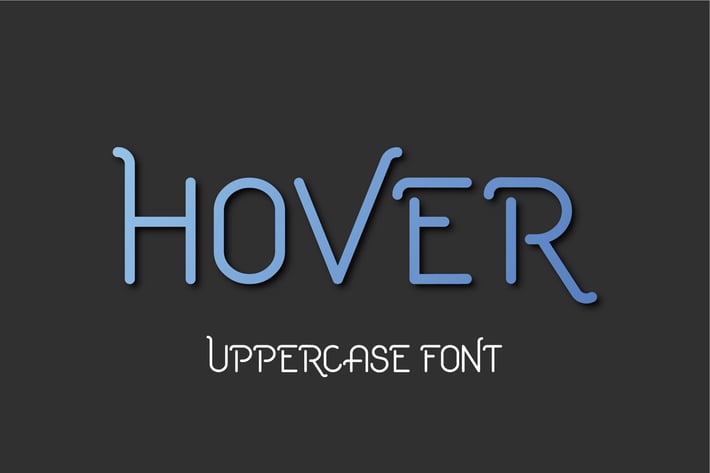
Hover Uppercase Font
Hover is Uppercase display font. It will create unique character to Your new project. Hover is great for eye catching headlines, logos, identities, poster and packaging designs.